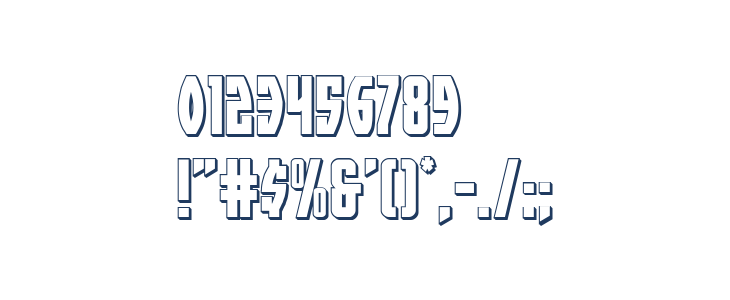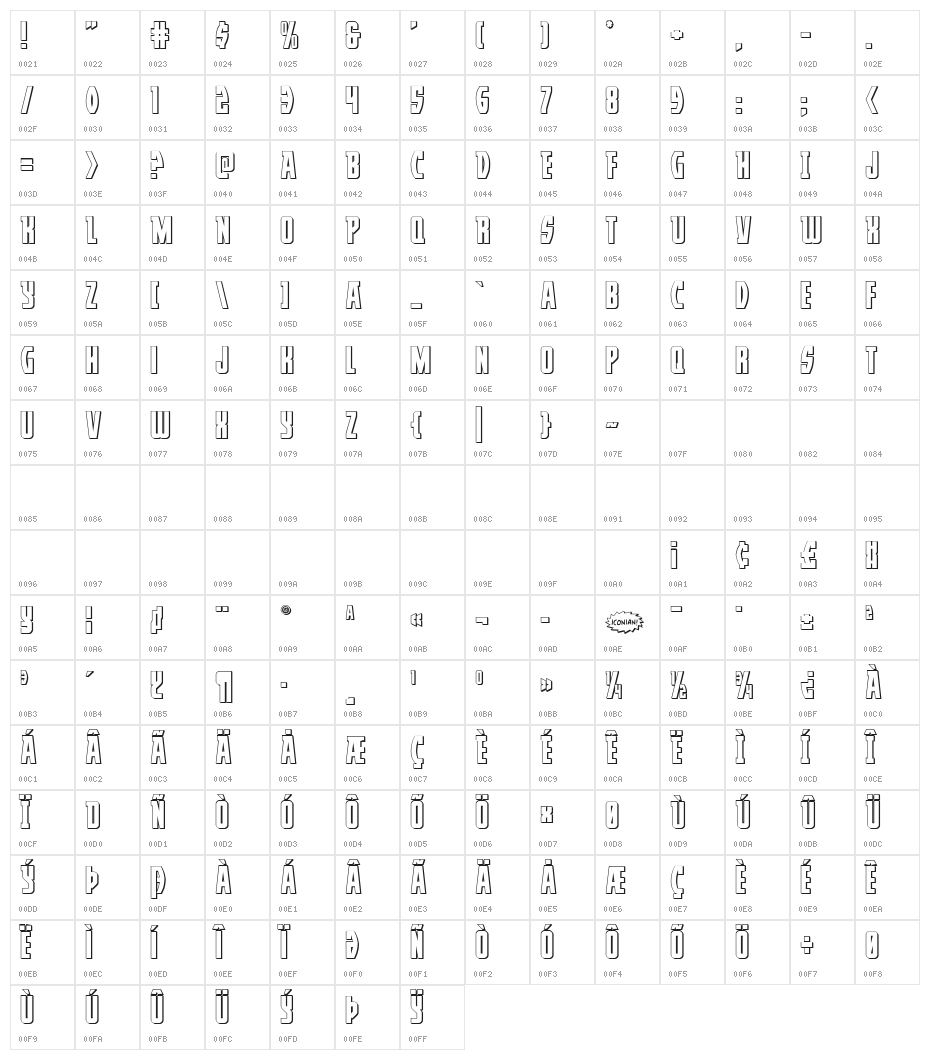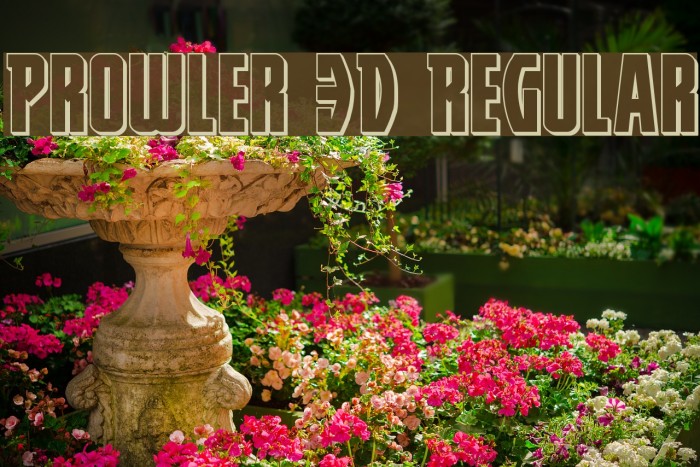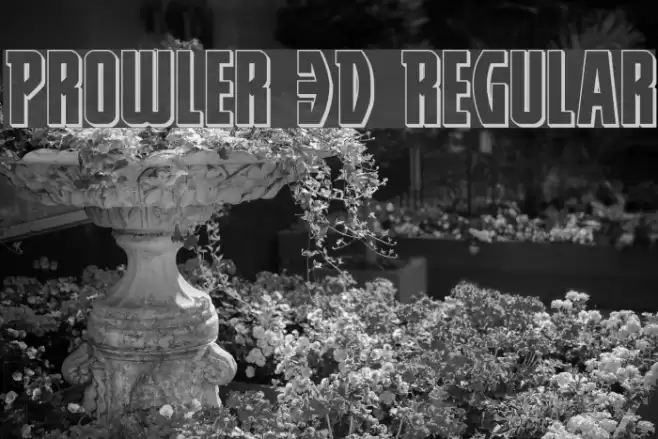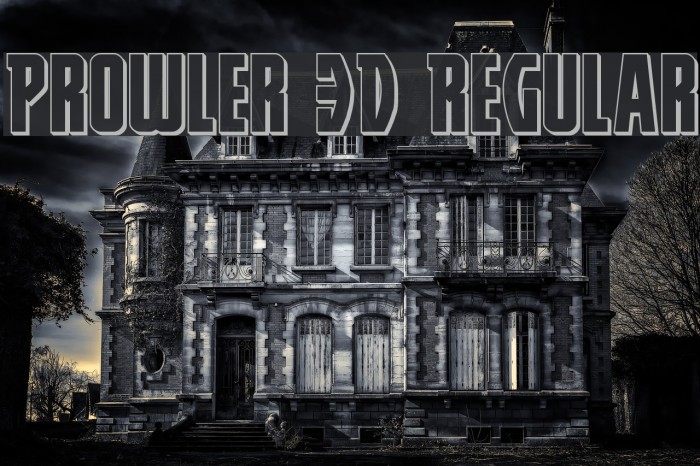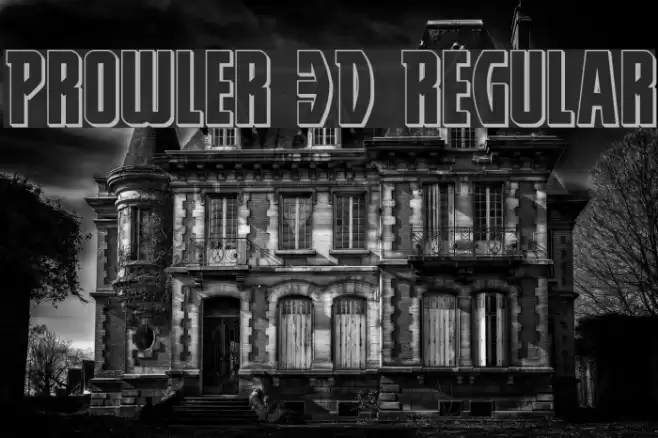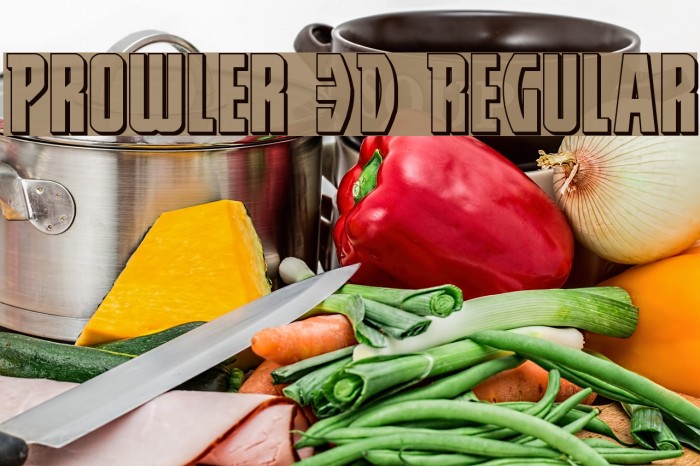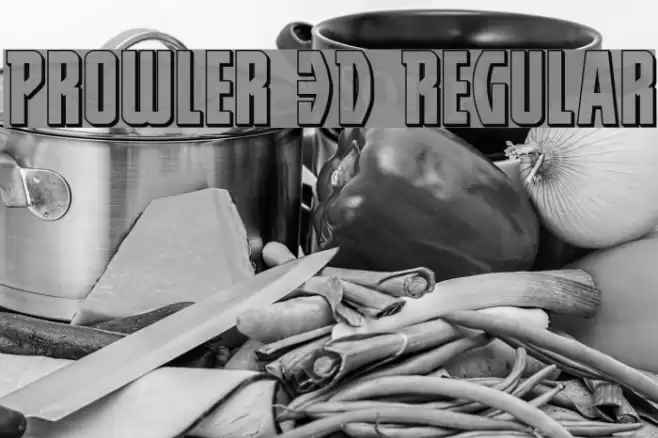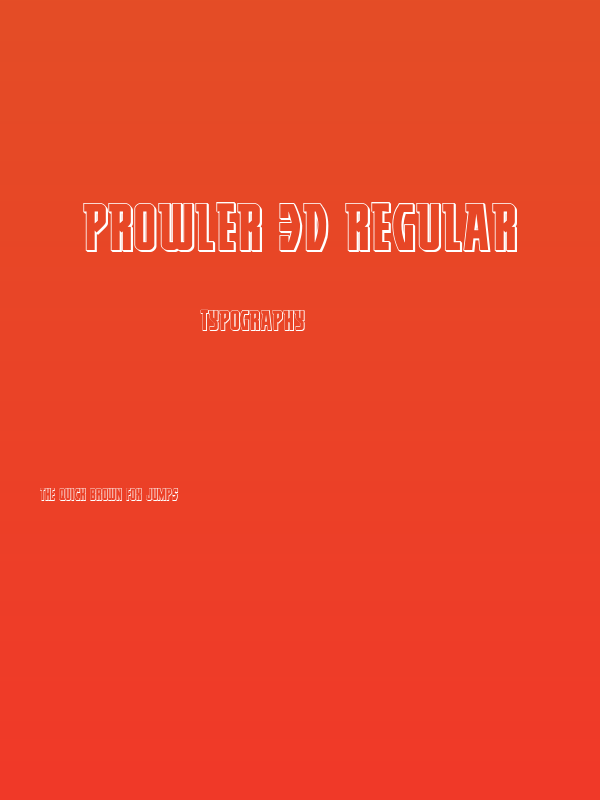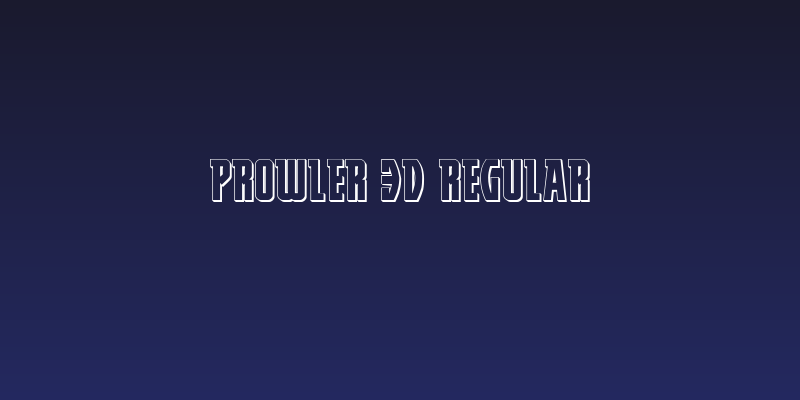
Prowler 3D Regular Font
Prowler 3D Regular Description
This font features a bold, three-dimensional design that gives each character a striking and impactful appearance. The letters are outlined with a thick black border, creating a sense of depth and making them stand out prominently. The geometric shapes and sharp angles contribute to a modern and edgy aesthetic, while the consistent width of the strokes maintains a uniform look across all characters. The font's uppercase letters are particularly eye-catching, with a blocky and robust style that commands attention. The numerals and special characters follow the same design principles, ensuring a cohesive and harmonious appearance throughout. This font is ideal for projects that require a strong visual impact and a contemporary feel.